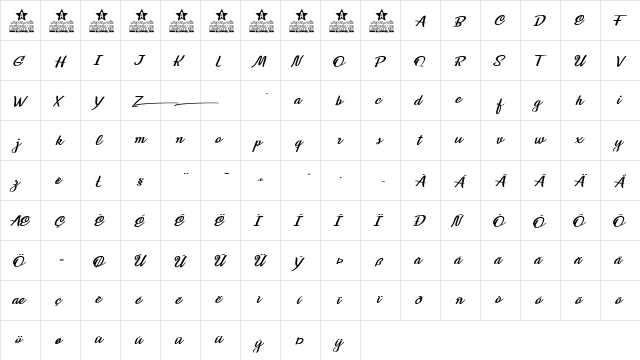
Superworld Personal Use Regular
| Foundry | Billy Argel |
| Designer | Billy Argel |
Design Context for Superworld Personal Use Typeface
Superworld Personal Use takes a measured approach to typography — its balanced proportions and neutral character make it a reliable workhorse for both digital and print work.